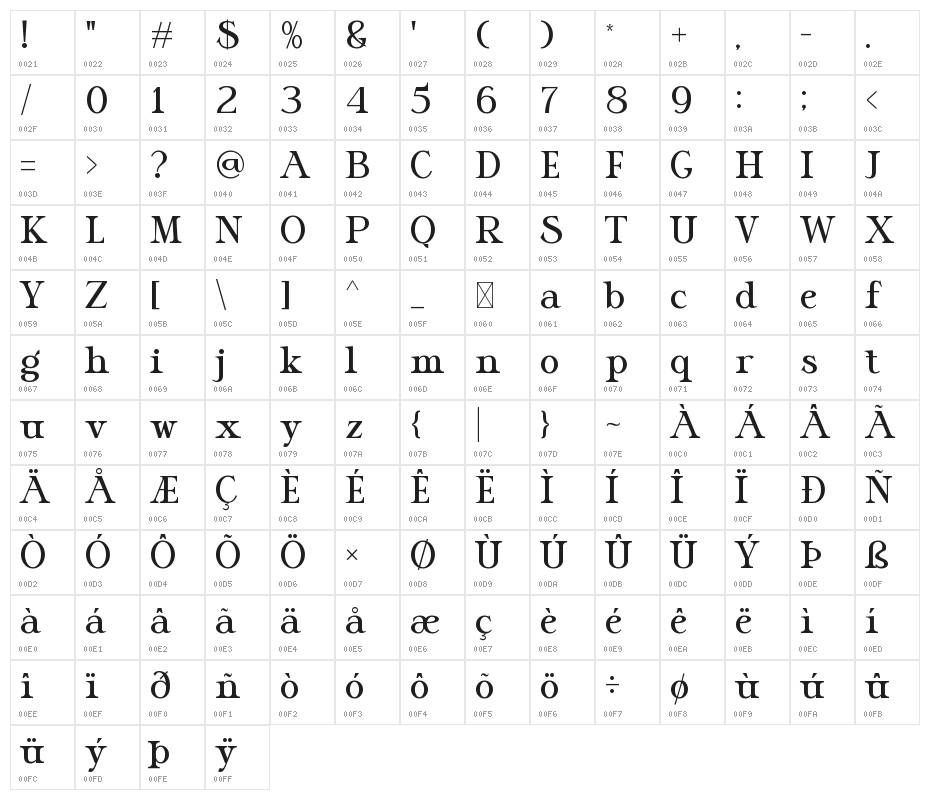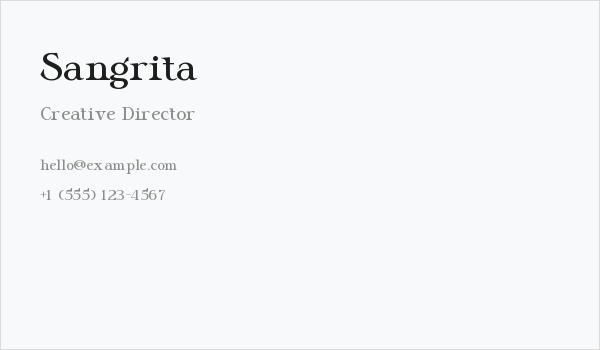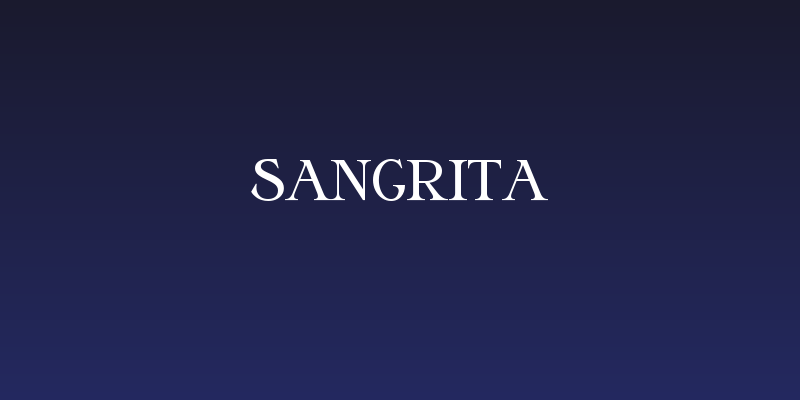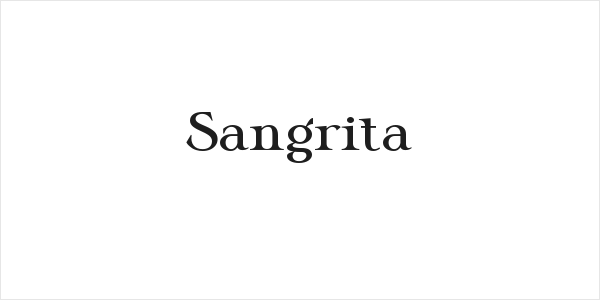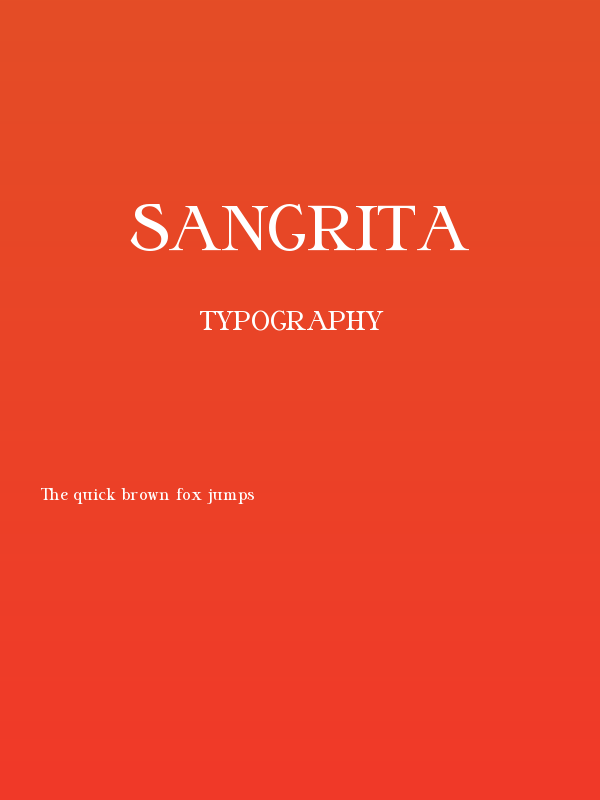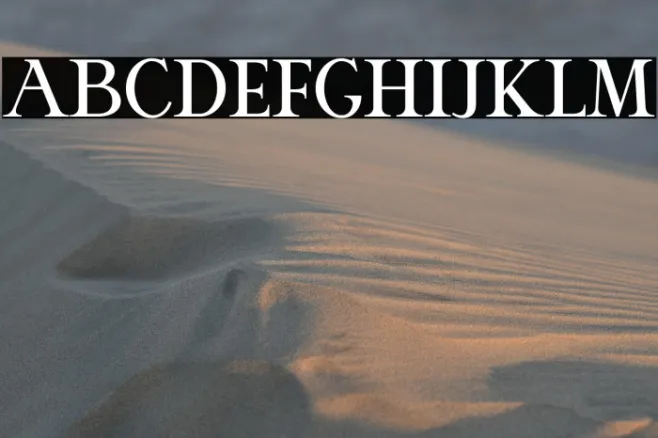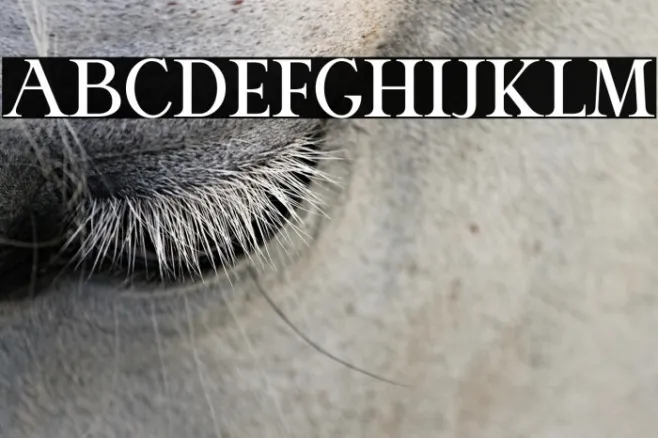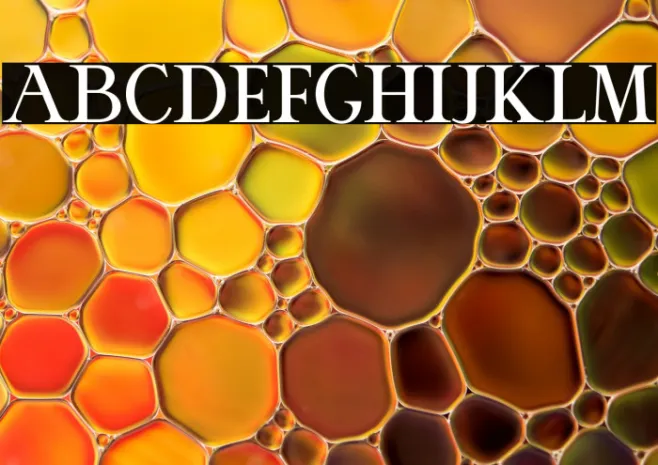
Sangrita Font
Sangrita Description
This font exhibits a classic serif style with elegant, well-defined strokes and a balanced weight distribution. The uppercase letters are bold and commanding, while the lowercase letters maintain a refined and sophisticated appearance. The numerals are clear and distinct, making them highly legible. Special characters are designed with the same attention to detail, ensuring consistency across all glyphs. The overall design is timeless, suitable for both traditional and modern applications, with a medium contrast in stroke thickness that adds to its readability.
| Proposed Projects | Ideal for book covers, editorial design, formal invitations, and branding projects that require a touch of elegance and tradition. |